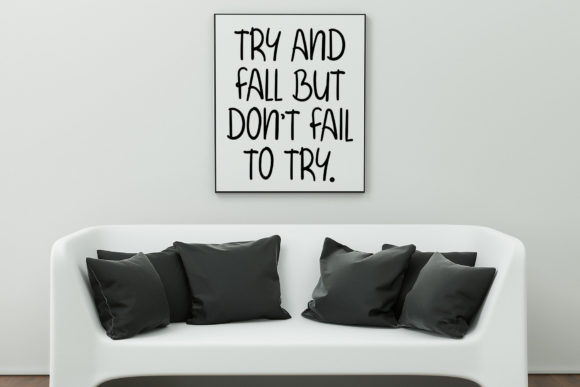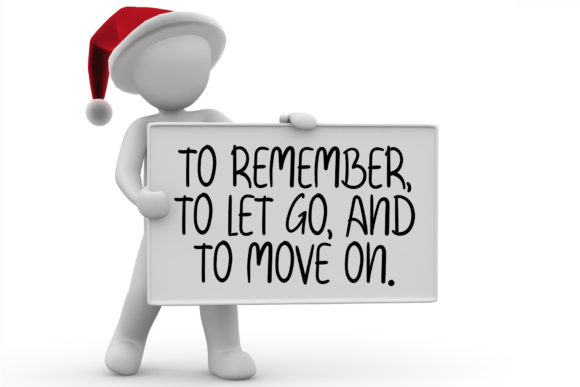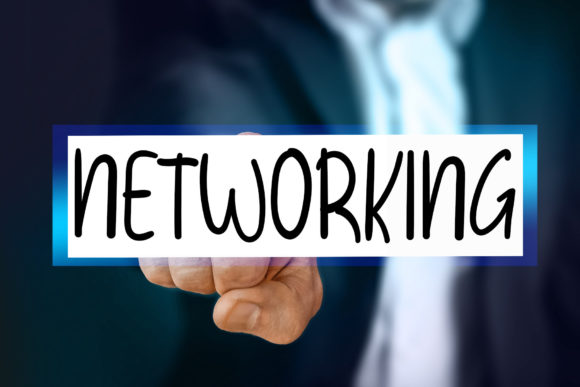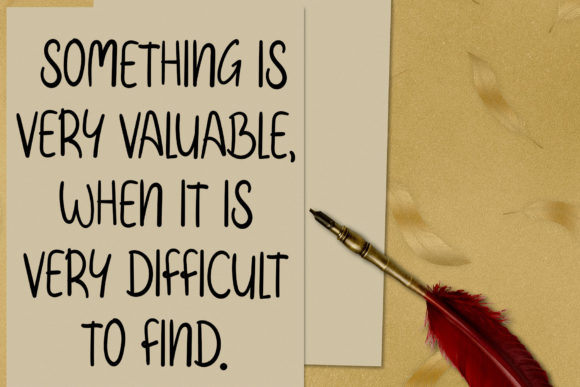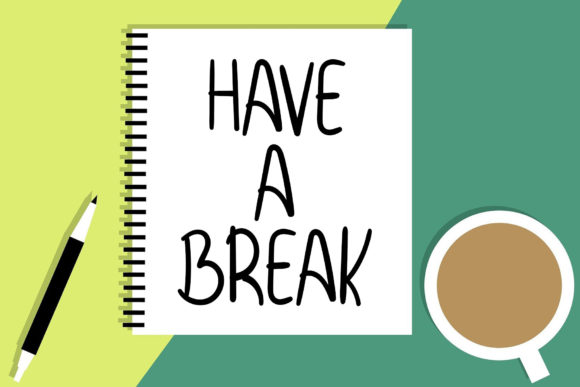
Introducing Bobamilk Font: The Sweet and Friendly Handwritten Font for Your Creative Projects
Are you a designer, crafter, or DIY enthusiast looking for a font that can add a personal touch to your projects? Look no further than Bobamilk Font! This sweet and friendly handwritten font is perfect for creating unique and eye-catching designs that stand out from the crowd. With its natural and unique style, Bobamilk Font is incredibly versatile and can be used for a wide range of projects, from crafting and scrapbooking to branding and advertising.
The Characteristics of Bobamilk Font
So, what makes Bobamilk Font so special? For starters, its handwritten style gives it a warm and approachable feel that’s perfect for designs that need a personal touch. The font’s natural and unique style also makes it incredibly fitting for a large pool of designs, from whimsical and playful to elegant and sophisticated. Whether you’re creating a logo, a poster, or a social media graphic, Bobamilk Font is sure to add a touch of personality and charm to your design.
The Benefits of Using Bobamilk Font
There are many benefits to using Bobamilk Font in your designs. For one, it’s incredibly easy to read and understand, making it perfect for designs that need to communicate a message or tell a story. Additionally, the font’s unique style makes it highly distinctive and memorable, which can be a major advantage when it comes to branding and advertising. Perhaps best of all, Bobamilk Font is incredibly versatile and can be used for a wide range of projects and applications.
What Kind of Projects is Bobamilk Font Suitable For?
The possibilities are endless when it comes to using Bobamilk Font! This sweet and friendly handwritten font is suitable for a wide range of projects, including:
- Crafting and scrapbooking: Add a personal touch to your scrapbook pages, cards, and other crafting projects with Bobamilk Font.
- Branding and advertising: Use Bobamilk Font to create unique and eye-catching logos, posters, and social media graphics that stand out from the crowd.
- Stationery and invitations: Add a touch of elegance and sophistication to your stationery and invitations with Bobamilk Font.
- Digital design: Use Bobamilk Font to create stunning digital designs, from website headers to social media graphics.
How to Use Bobamilk Font in Your Designs
Using Bobamilk Font in your designs is easy! Here are a few tips to get you started:
- Pair Bobamilk Font with other fonts: Experiment with pairing Bobamilk Font with other fonts to create unique and eye-catching combinations.
- Use Bobamilk Font for headings and titles: Bobamilk Font is perfect for headings and titles, where its unique style can really shine.
- Add embellishments and graphics: Use Bobamilk Font in combination with embellishments and graphics to create stunning and eye-catching designs.
In conclusion, Bobamilk Font is a sweet and friendly handwritten font that’s perfect for designers, crafters, and DIY enthusiasts. With its natural and unique style, Bobamilk Font is incredibly versatile and can be used for a wide range of projects and applications. Whether you’re creating a logo, a poster, or a social media graphic, Bobamilk Font is sure to add a touch of personality and charm to your design. So why wait? Download Bobamilk Font today and start creating your own unique and eye-catching designs!
The only limit is your imagination! With Bobamilk Font, you can create anything you can think of. So go ahead, get creative, and see what amazing designs you can come up with using this sweet and friendly handwritten font.